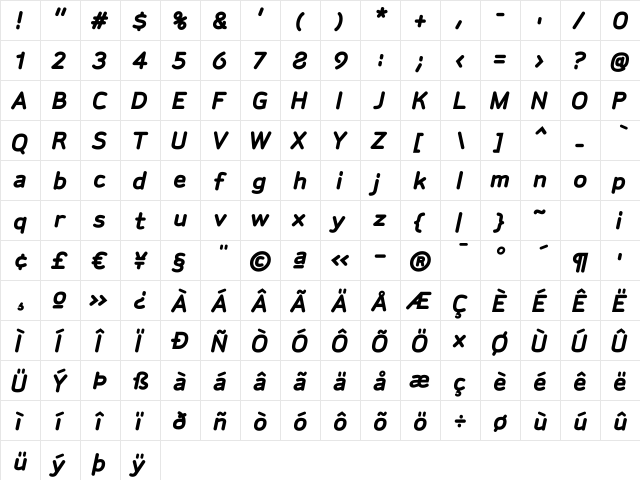
SylviaBold Italic Regular Font Preview
Design Context for SylviaBold Italic Typeface
SylviaBold Italic takes a measured approach to typography — its balanced proportions and neutral character make it a reliable workhorse for both digital and print work. The slanted form adds forward momentum and visual energy. Its bold stroke weight gives it real presence on the page.
Pro Tip: Try SylviaBold Italic for annotation and caption copy alongside an upright companion — the contrast in angle creates a dynamic but ordered typographic system.